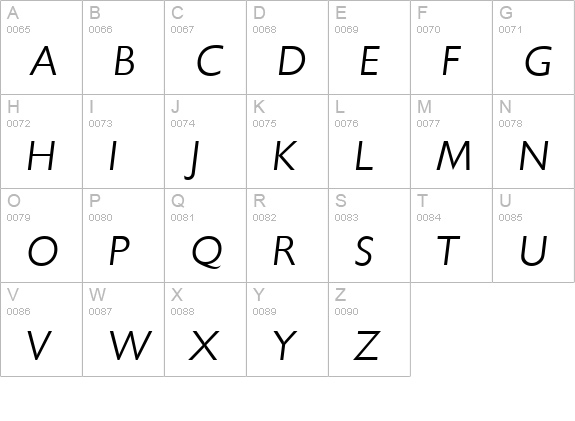
ChantillySerial-Light-Italic Font Details
ChantillySerial-Light-Italic is a refined, elegant, italic variant in the ChantillySerial typeface family \xE2\x80\x94 well suited to elegant body text, refined sub-headings, and luxury branding.
ChantillySerial-Light-Italic font is a delicate and elegant typeface that exudes sophistication and class. Its subtle slant and light weight make it perfect for adding a touch of refinement to your designs. The flowing lines and graceful curves of this font create a sense of elegance and charm. Best of all, ChantillySerial-Light-Italic font is available for free download at FontsMarket.com. Whether you're working on a project that requires a touch of sophistication or simply want to elevate your designs, this font is a perfect choice. Download it today and add a touch of class to your creations with ChantillySerial-Light-Italic font.